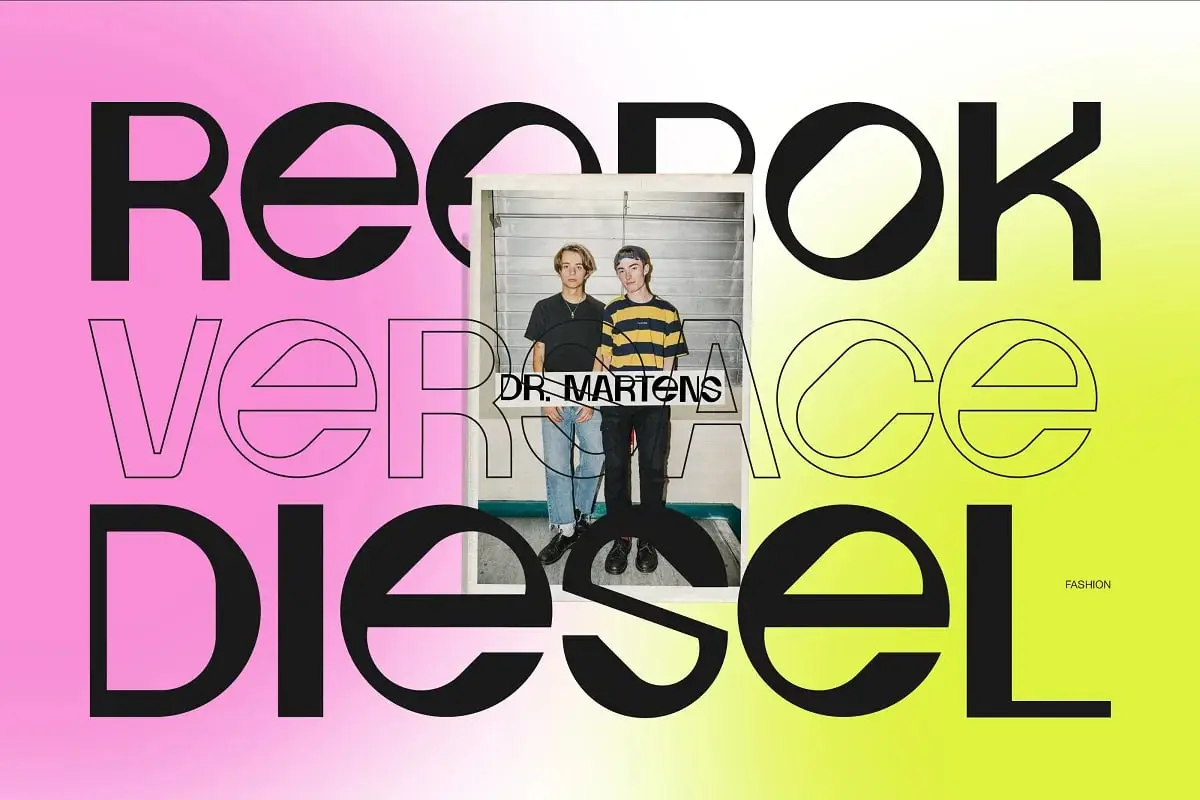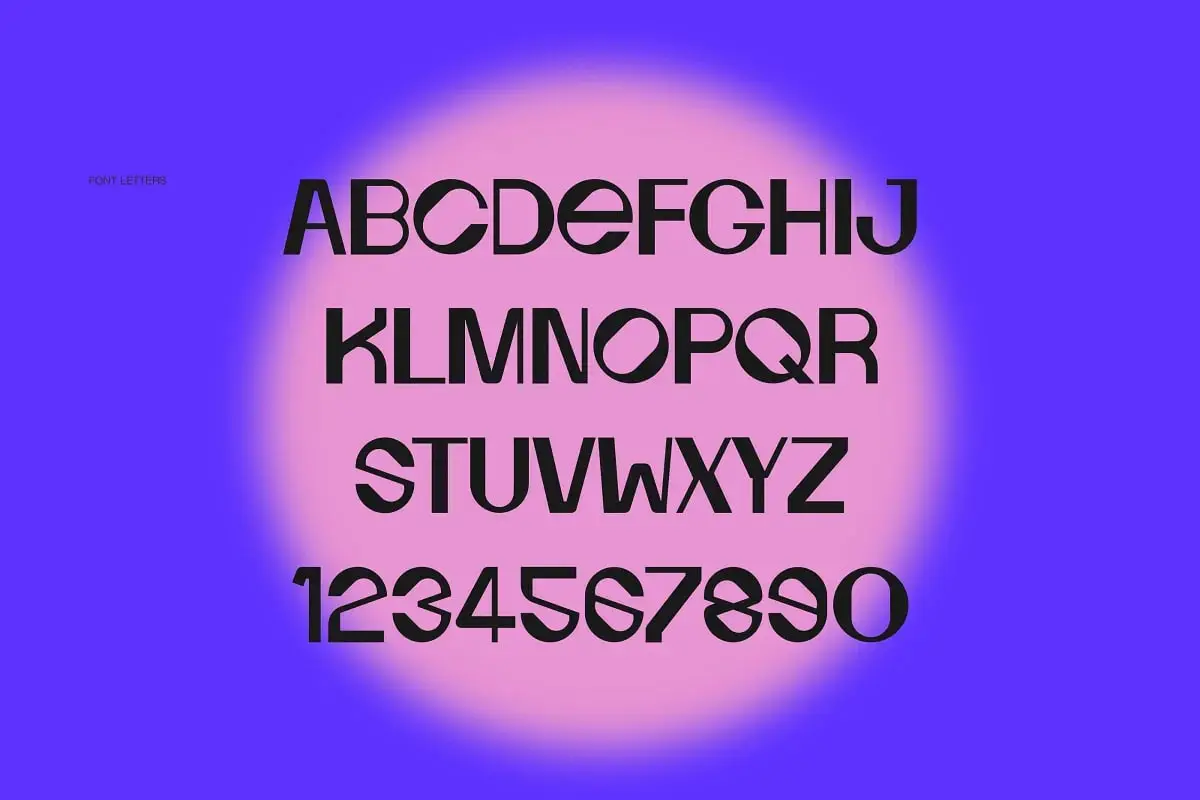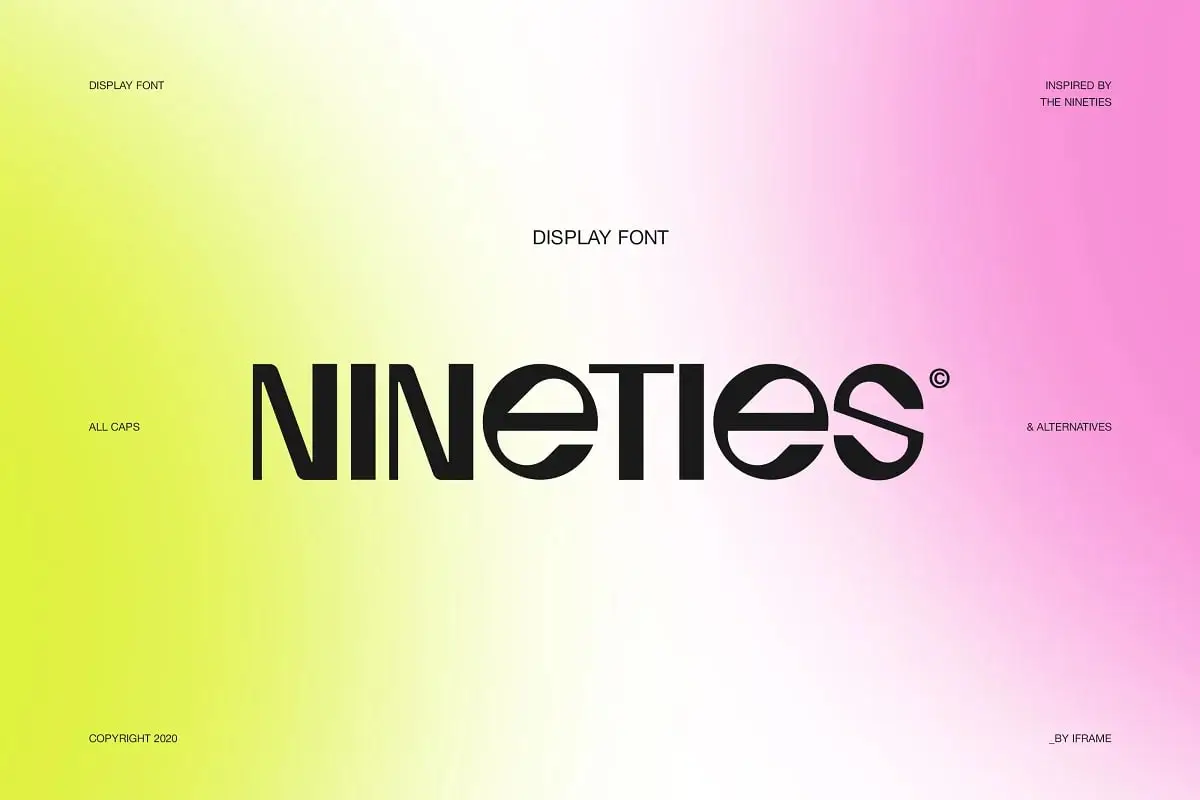
Iframe-Nineties Display Font
The Iframe-Nineties Display Font captures the essence of retro design, making it an ideal choice for projects that aim to evoke nostalgia. This unique typeface features bold, playful letterforms that are perfect for headlines, posters, and branding materials.
• Ideal for branding, logos, and promotional materials.
• Great for web design, especially in retro-themed projects.
• Use in print media for an eye-catching effect.